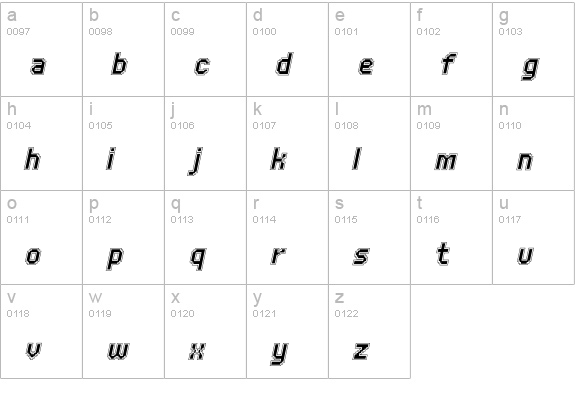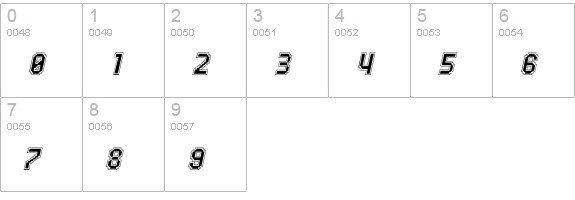
Introducing UNDA-OutlineItalic, a striking and versatile font that will add a touch of elegance to any design project. With its sleek and modern style, this typeface is perfect for creating eye-catching headlines, stylish logos, and captivating advertisements. The UNDA-OutlineItalic font features a unique italicized outline design that exudes confidence and sophistication. Its clean lines and smooth curves give it a distinctive and contemporary look, making it the ideal choice for both digital and print media. One of the most remarkable aspects of UNDA-OutlineItalic is that it is freely available to download at FontsMarket.com. This means that designers, creatives, and enthusiasts alike can enjoy the benefits of this exceptional font without any cost. Whether you are a professional designer or simply someone who appreciates high-quality typography, UNDA-OutlineItalic is a must-have addition to your font collection. Not only does UNDA-OutlineItalic offer exceptional aesthetics, but it also provides excellent legibility. Its carefully crafted letterforms ensure that your message is conveyed with clarity and impact. From small captions to large headlines, this font maintains its readability across various sizes and resolutions. UNDA-OutlineItalic is a versatile typeface that can be easily paired with other fonts to create visually appealing combinations. Its bold and distinctive appearance makes it a perfect complement to a wide range of design styles, from modern and minimalist to bold and expressive. Whether you're designing a website, creating a branding package, or working on a marketing campaign, UNDA-OutlineItalic will elevate your designs and captivate your audience. Its unique blend of elegance and modernity will make your creations stand out from the crowd, leaving a lasting impression. Experience the beauty and versatility of UNDA-OutlineItalic for yourself by downloading it for free at FontsMarket.com. Enhance your design projects with this remarkable font and unlock a world of creative possibilities.